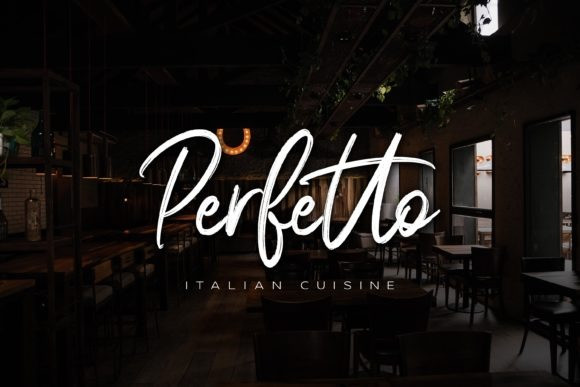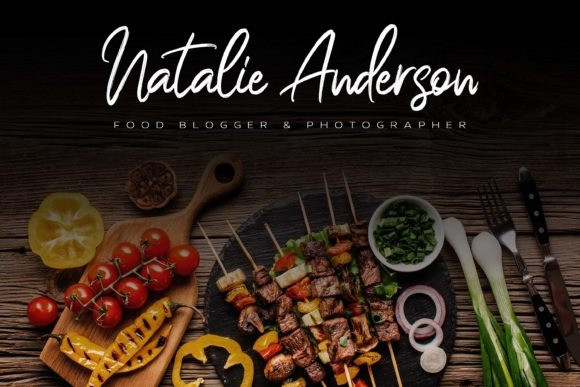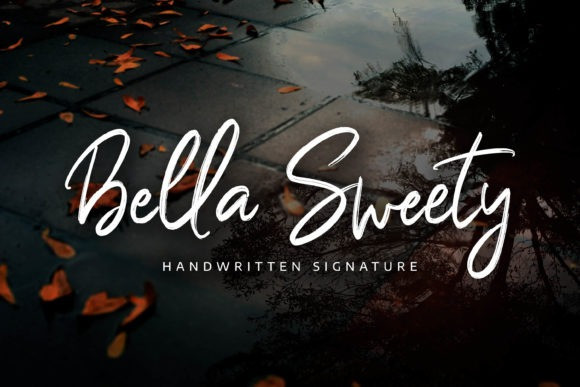
Bella Sweety Brush Font
Bella Sweety is a magical handwritten font carefully created with a touch of elegance. This is a beautiful combination of timeless elegance and authentic calligraphy. It features an incredibly classic style, while still keeping a friendly feel. Bella Sweety is the perfect font for making original and outstanding designs.